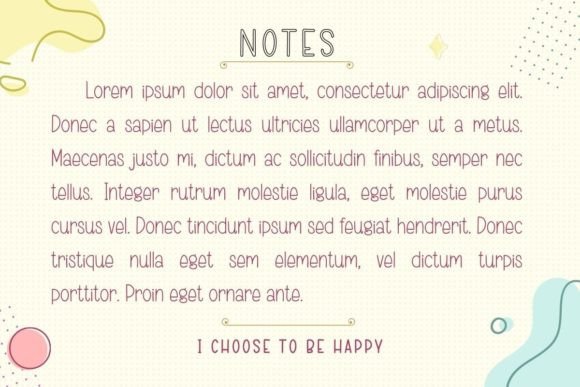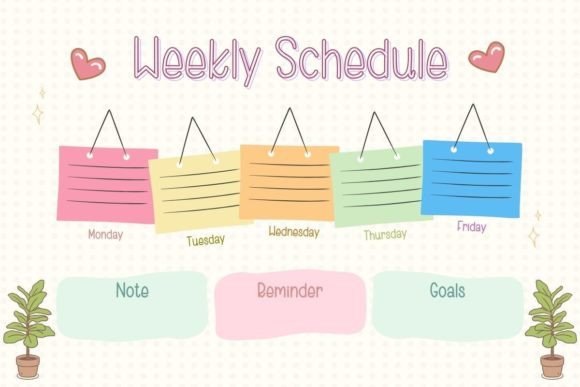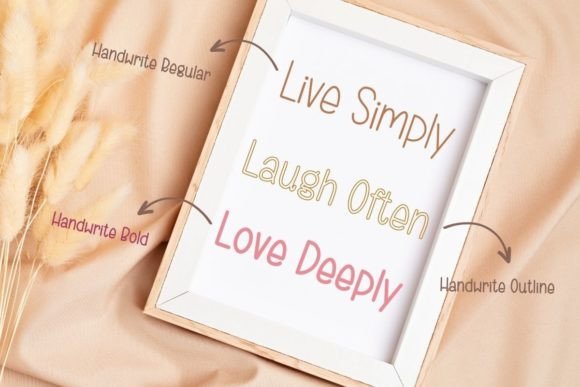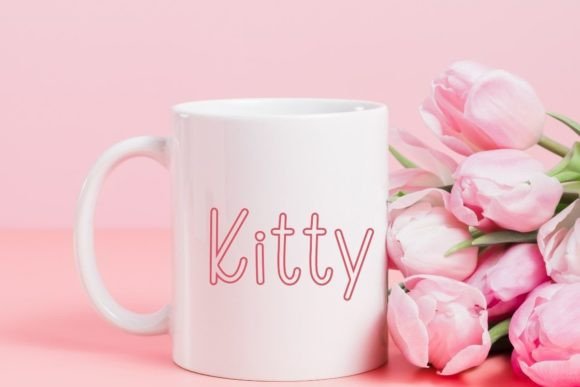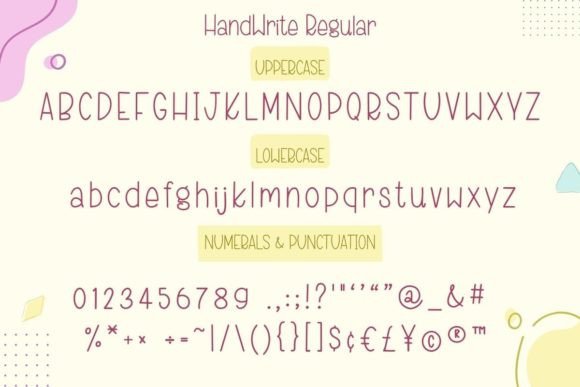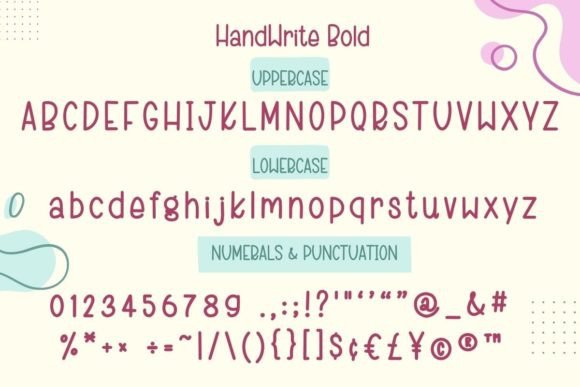
Introducing Handwrite Font: The Neatly Handwritten Font for Creative Expression
Are you looking for a font that adds a personal touch to your designs? Look no further than Handwrite Font, a beautifully crafted handwritten font that is perfect for a variety of creative projects. In this article, we’ll explore the features and benefits of Handwrite Font, and show you how to make the most of this versatile font.
What is Handwrite Font?
Handwrite Font is a neatly handwritten font that is designed to mimic the look and feel of handwritten text. With its smooth, flowing lines and carefully crafted letterforms, Handwrite Font is the perfect choice for anyone looking to add a touch of personality to their designs.
Uses for Handwrite Font
Handwrite Font is incredibly versatile, and can be used for a wide range of creative projects. Here are just a few ideas to get you started:
- Note-taking and journaling: Handwrite Font is perfect for taking notes, writing in a diary, or jotting down quick reminders. Its neat and tidy letterforms make it easy to read and write.
- Greeting cards and invitations: Add a personal touch to your greeting cards and invitations with Handwrite Font. Its handwritten feel makes it perfect for special occasions like birthdays, weddings, and holidays.
- Design and crafting: Handwrite Font is a great choice for crafters and designers who want to add a personal touch to their projects. Use it to create beautiful banners, signs, and other decorative items.
- Social media and blogging: Stand out on social media and blogs with Handwrite Font. Its unique and eye-catching letterforms make it perfect for headings, titles, and other text elements.
- Merchandise and products: Use Handwrite Font to create custom merchandise like mugs, t-shirts, and tote bags. Its clear and readable letterforms make it perfect for product labels and branding.
Benefits of Handwrite Font
So why choose Handwrite Font for your creative projects? Here are just a few benefits:
- Unique and eye-catching: Handwrite Font is a one-of-a-kind font that adds a touch of personality to any design.
- Easily readable: Despite its handwritten feel, Handwrite Font is incredibly easy to read, making it perfect for body text and other long-form content.
- Versatile: Handwrite Font can be used for a wide range of creative projects, from note-taking and journaling to design and crafting.
- High-quality: Handwrite Font is a high-quality font that is designed to look great on any device or medium.
Tips for Using Handwrite Font
Here are a few tips for getting the most out of Handwrite Font:
- Experiment with different sizes and colors: Handwrite Font looks great in a variety of sizes and colors. Experiment with different combinations to find the one that works best for your project.
- Pair with other fonts: Handwrite Font pairs well with other fonts, especially sans-serif and serif fonts. Try pairing it with a bold font for headings and a clean font for body text.
- Use for emphasis: Handwrite Font is perfect for adding emphasis to certain words or phrases. Use it to draw attention to important information or to add a touch of personality to your text.
| Font Name | Handwrite Font |
| Author | AnningArts |
Handwrite Font is a beautifully crafted handwritten font that is perfect for a wide range of creative projects. Its unique and eye-catching letterforms make it perfect for adding a touch of personality to your designs, while its easily readable and versatile nature make it a great choice for body text and other long-form content. Whether you’re a designer, crafter, or simply someone who loves to write, Handwrite Font is a great choice for anyone looking to add a personal touch to their creative projects.